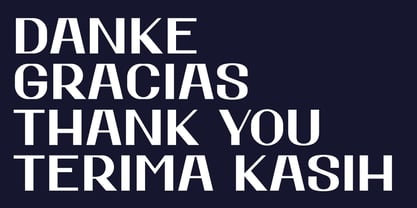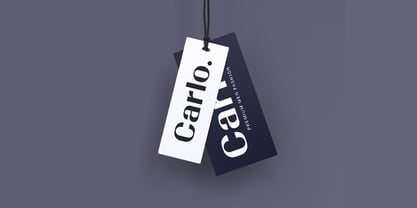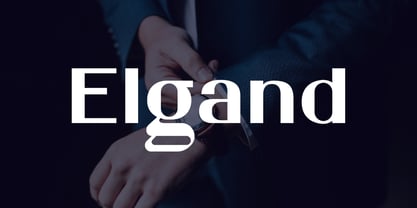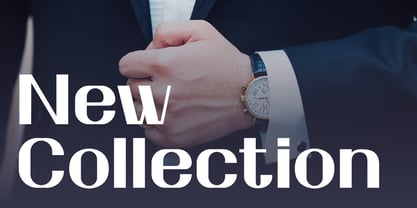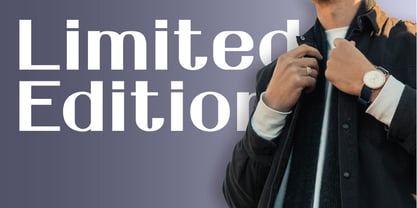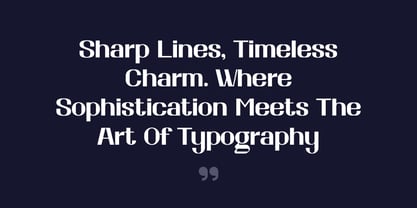
Elgand
von Habitype
Die Schriftfamilie Elgand wurde von Fahrul Saputra entworfen und von Habitype veröffentlicht. Elgand enthält 1 Stile. Mehr über diese Familie
Elgand is a bold, modern masculine typeface that combines powerful simplicity with a sharp, refined presence. The defining characteristics of this typeface are its clean, architectural lines, solid structural weight, and balanced proportions, making it an essential tool for impactful branding, commanding posters, and digital layouts that require a confident look.
Engineered to deliver straightforward character and decisive visual strength, Elgand commands attention effortlessly while maintaining the versatility needed for diverse, high-end applications.
Designer: Fahrul Saputra
Foundry: Habitype